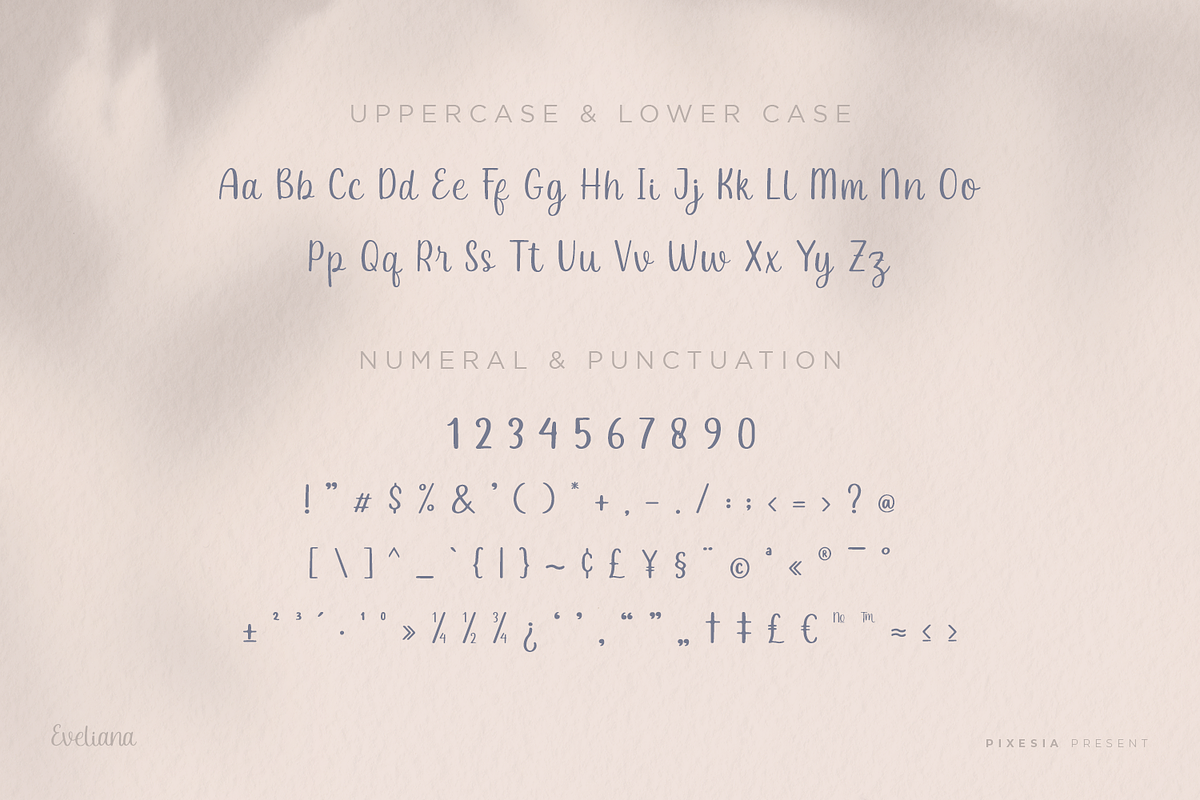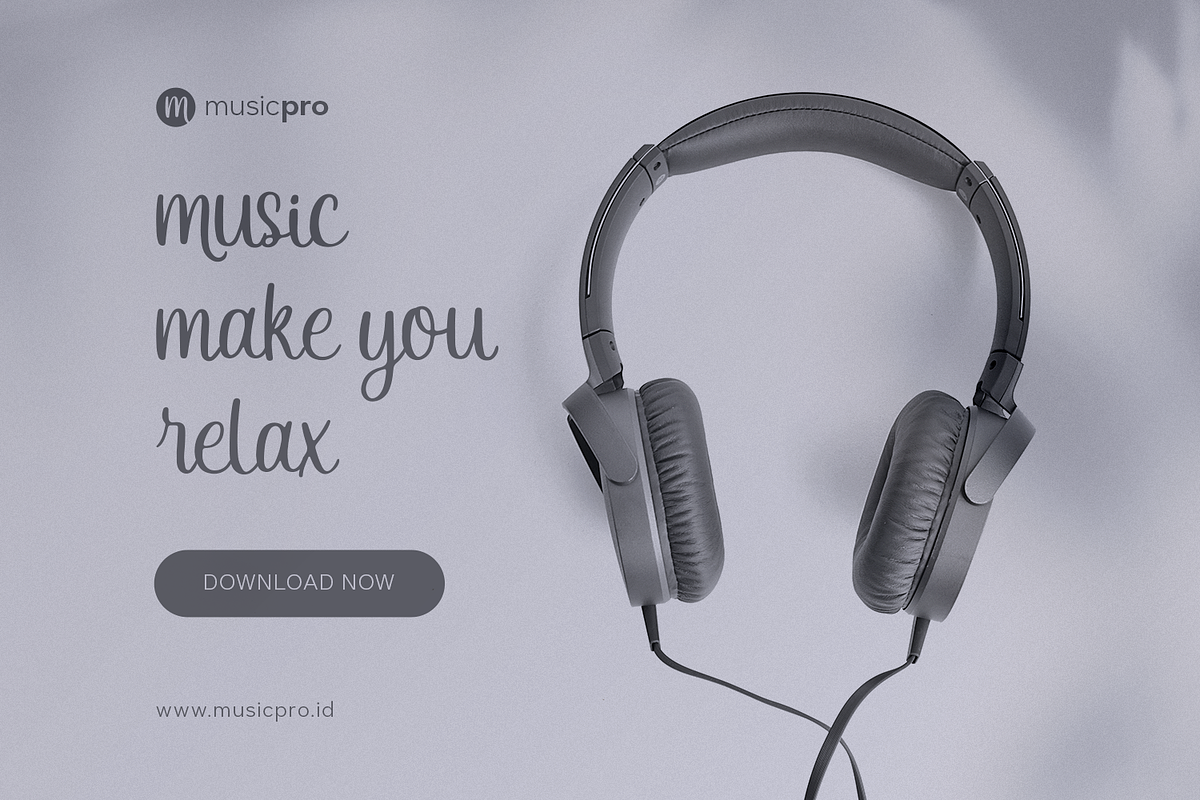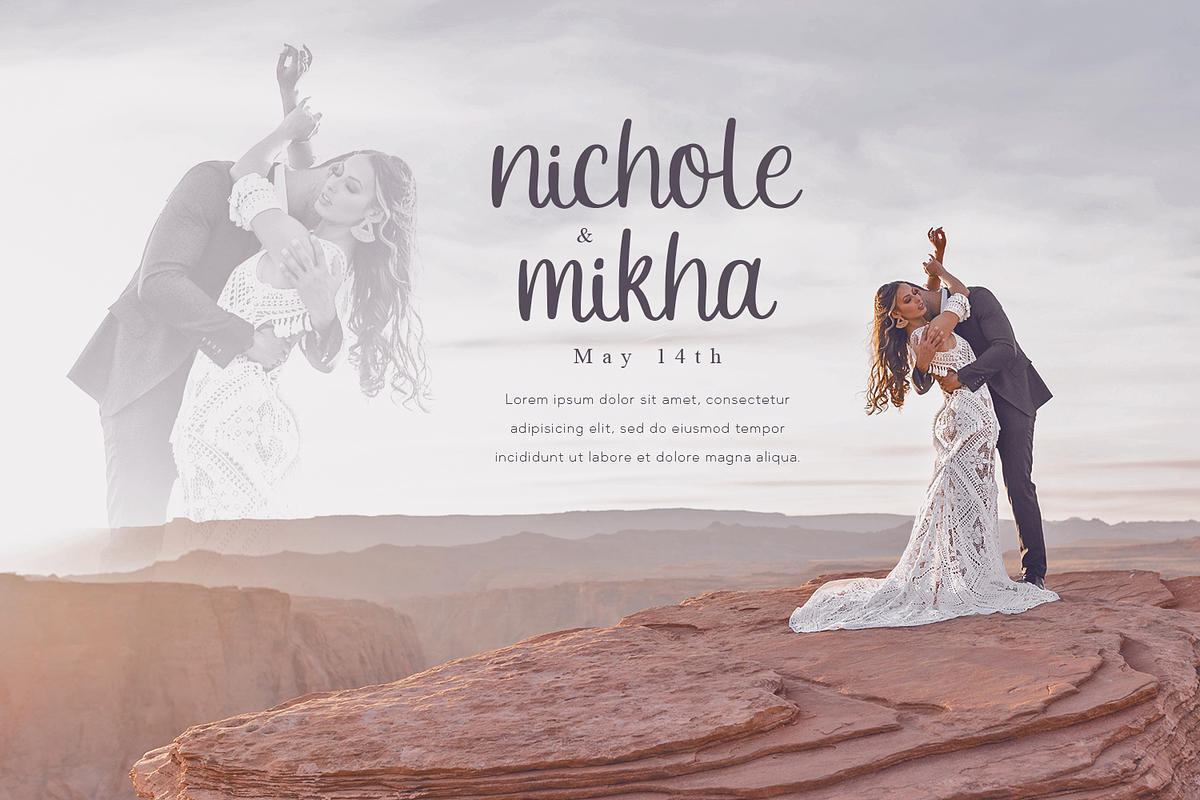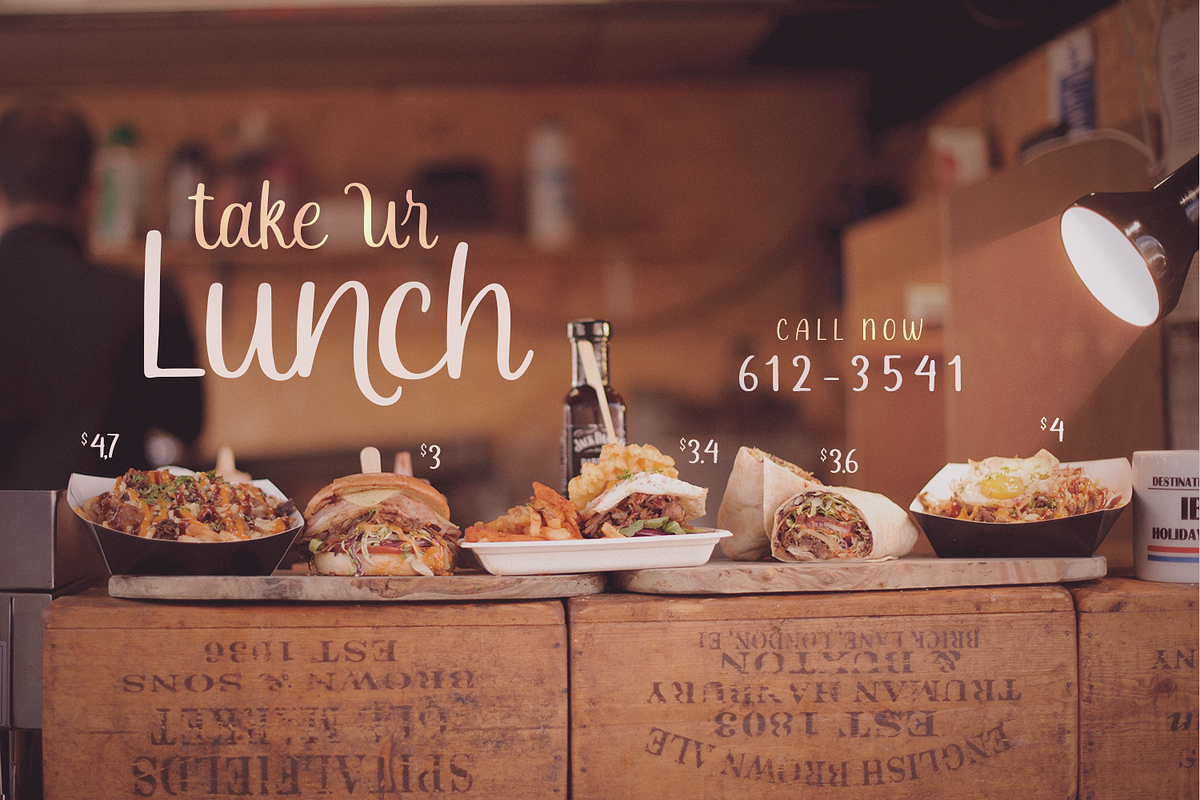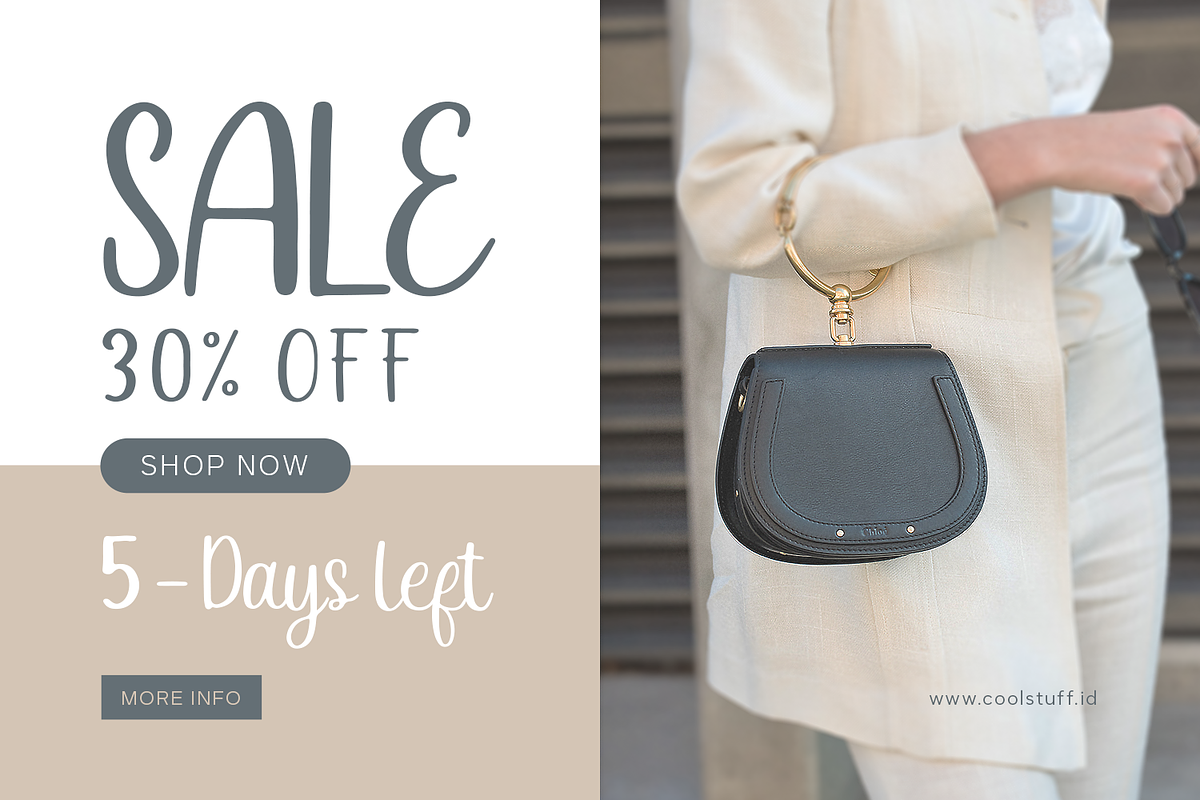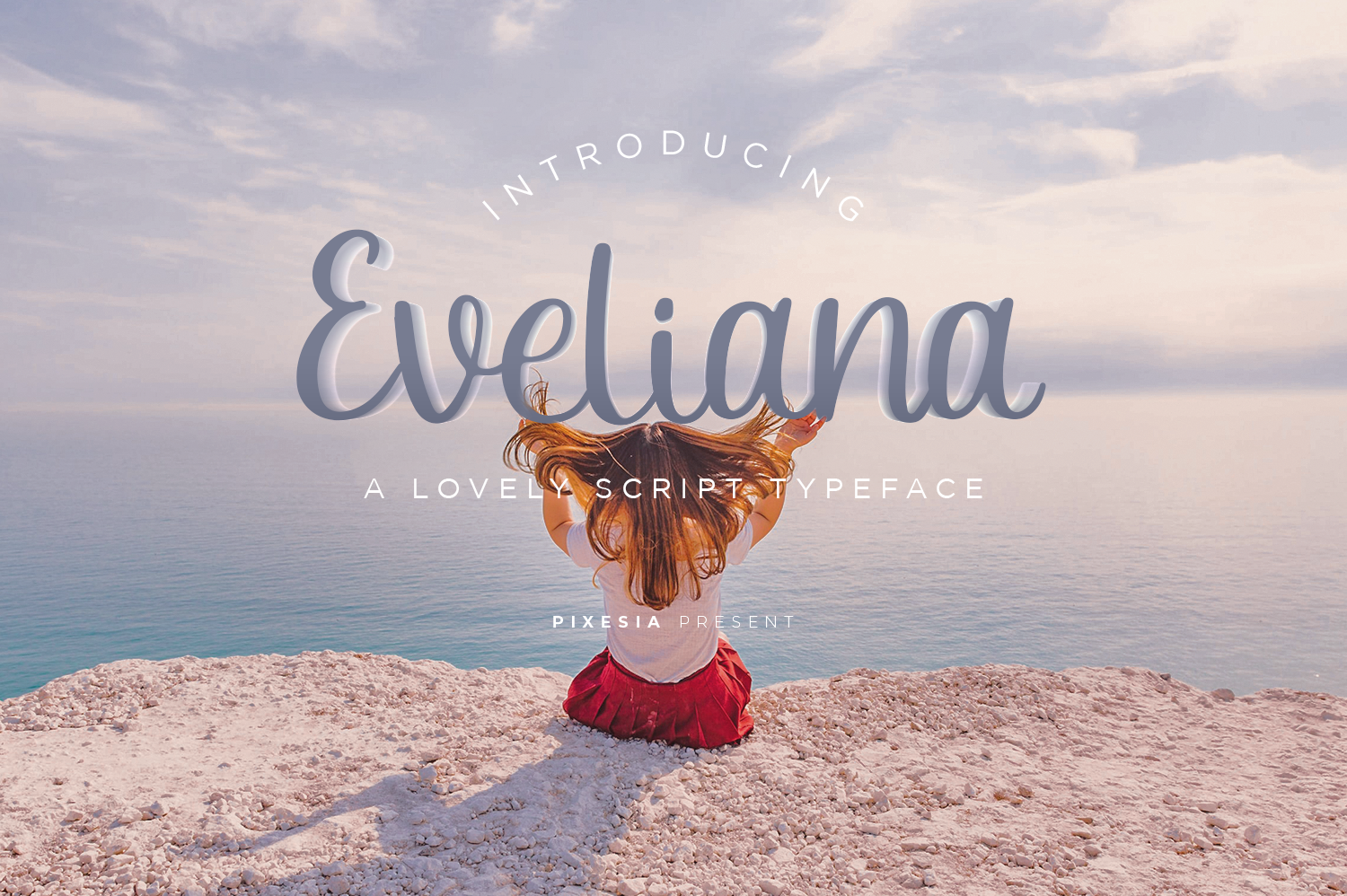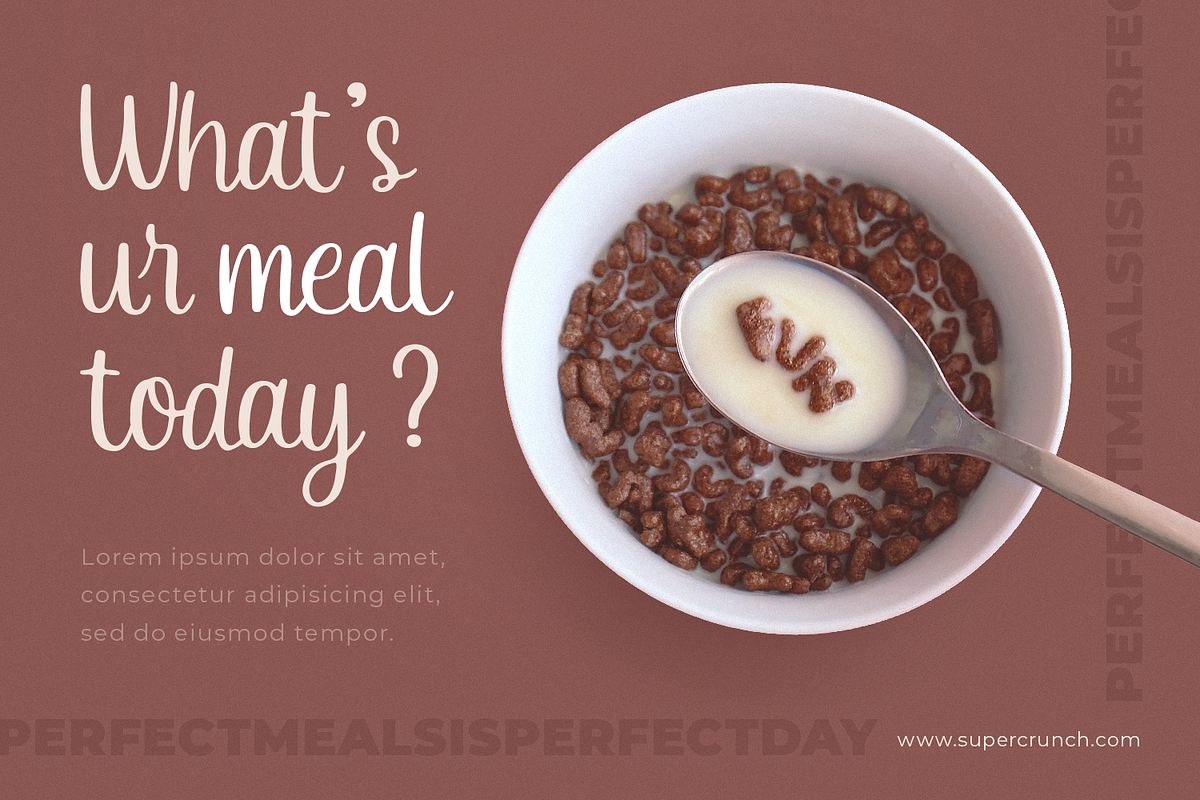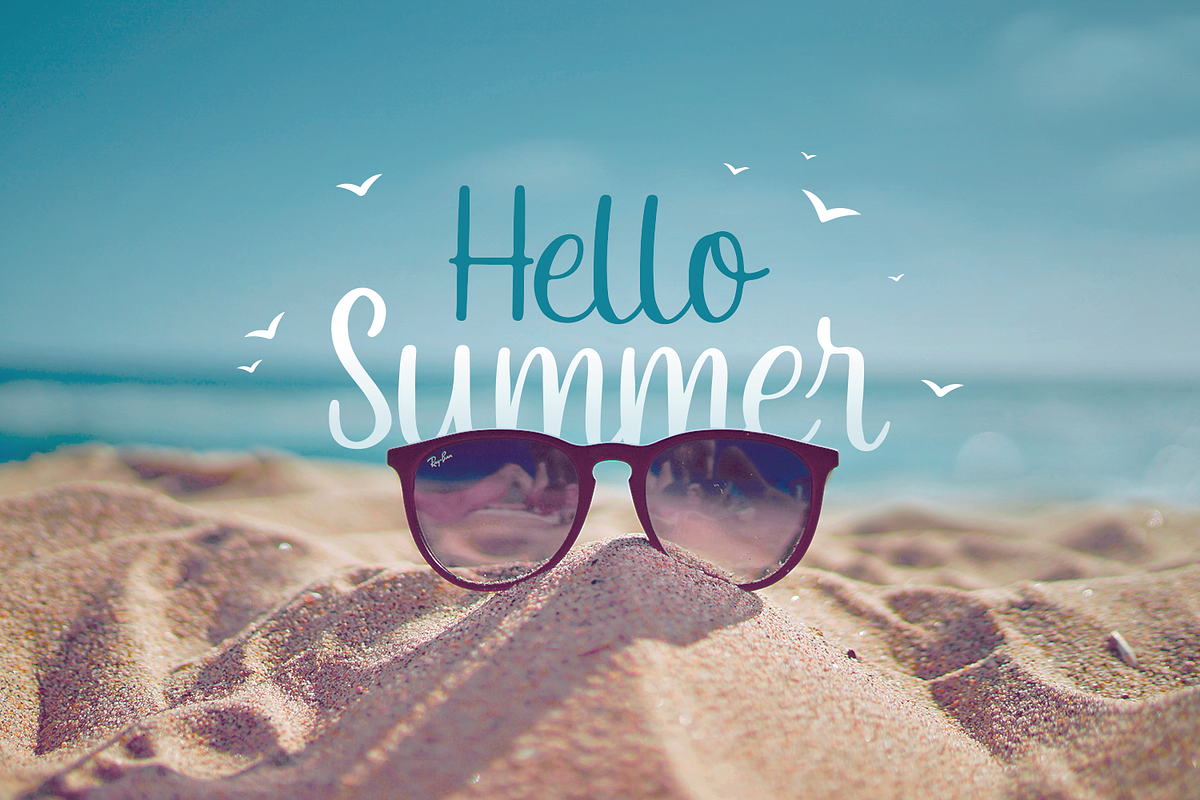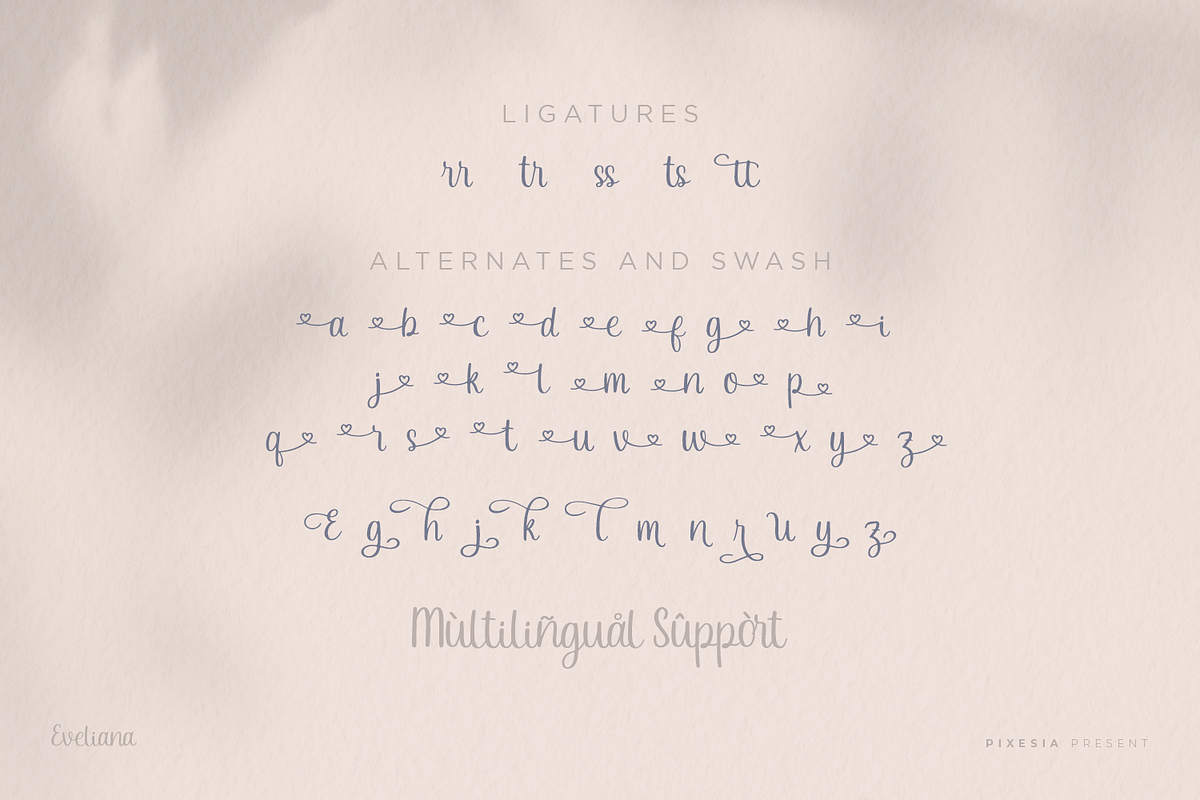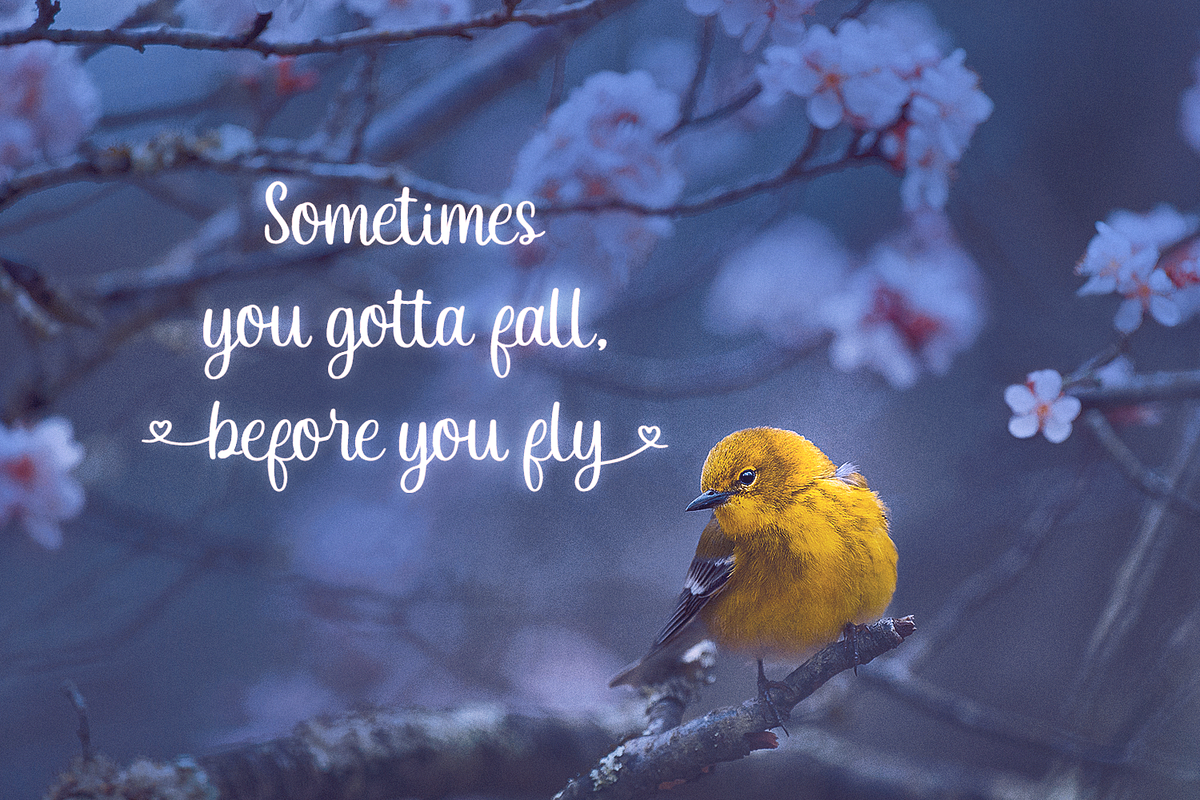
Eveliana - Lovely Script Font
Introducing Eveliana - A Lovely Script Font
Eveliana is a lovely modern and beautiful script font, featuring a nice flow. It looks lovely on a variety of designs requiring a personalized style, such as wedding invitations, thank you cards, weddings, greeting cards, logos and so on. This font is PUA encoded which means you can access all of the glyphs and swashes with ease!